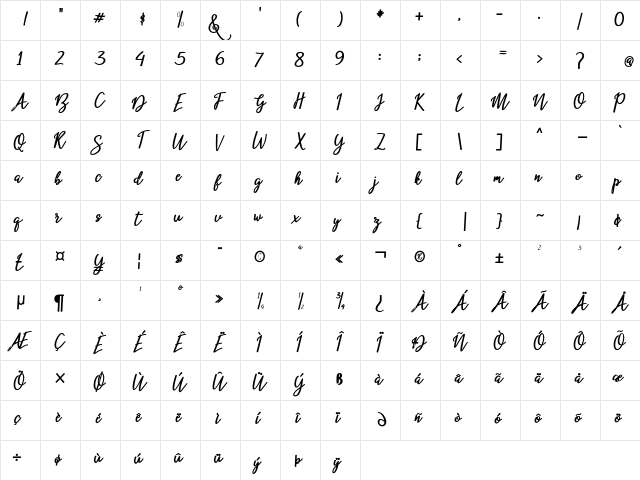
beloved Regular
| Foundry | mrletters_Muhammad Rizal |
| Designer | mrletters_Muhammad Rizal |
Design Context for beloved Typeface
beloved is a composed and adaptable typeface that performs quietly and consistently across a wide range of design contexts.